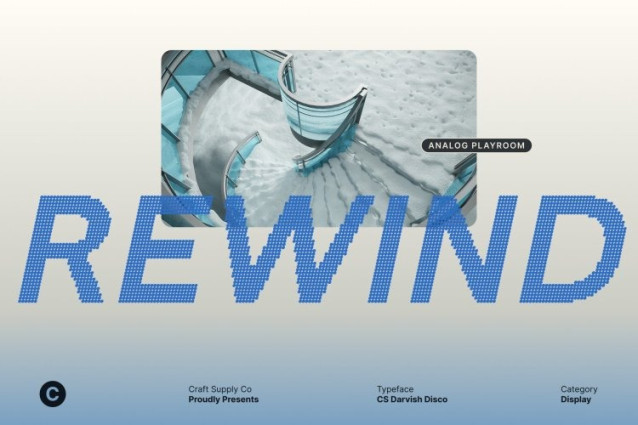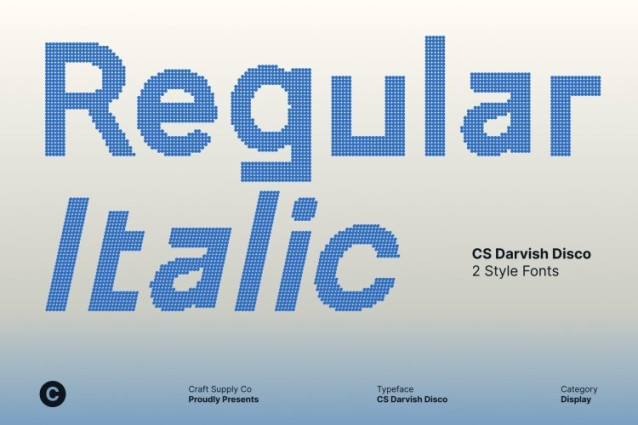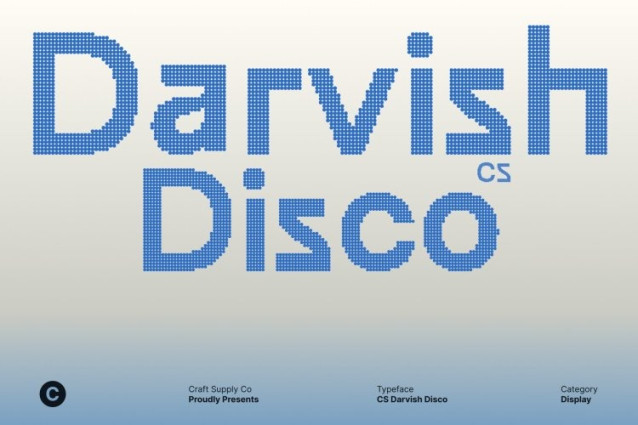
CS Darvish Disco Font This is a modern sans serif typeface that merges corporate professionalism with the energetic pulse of disco-inspired design. Its clean, tidy letterforms ensure readability and clarity, while subtle curves and geometric rhythm give the font a dynamic, lively personality perfect for modern brands that want sophistication with a spark.
Readability Meets Rhythmic Style
With consistent proportions, balanced spacing, and minimalistic shapes, this font maintains clarity in every application. But the slight disco-inspired motion in its forms adds flow and energy, turning standard text into something visually engaging without sacrificing professionalism.
Versatile Across Corporate and Creative Applications
Ideal for branding, presentations, web content, or editorial projects, this font works seamlessly in digital and print media. Its versatile design adapts from clean corporate environments to lively, creative campaigns, making it a reliable choice for designers who want both function and flair.
Professional, Polished, and Party-Ready
This font elevates corporate communications with a subtle sense of movement and contemporary style. It’s perfect for companies, startups, and creative enterprises looking to balance elegance, modernity, and a hint of nightlife-inspired energy in their visual identity.